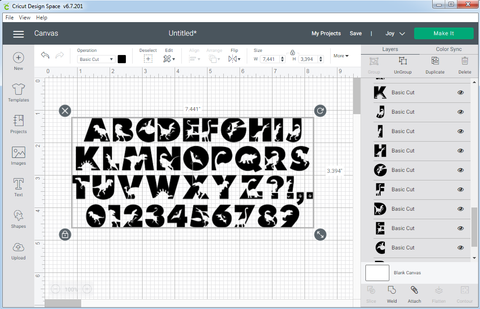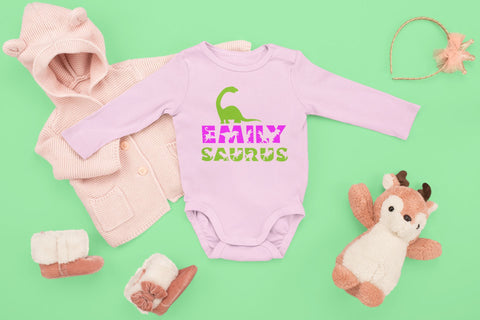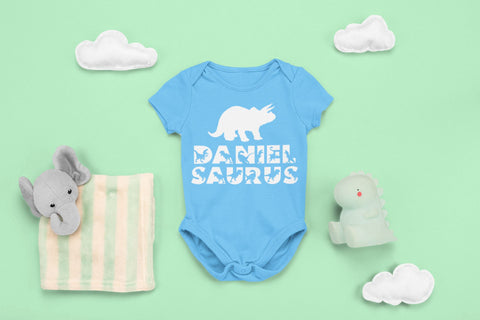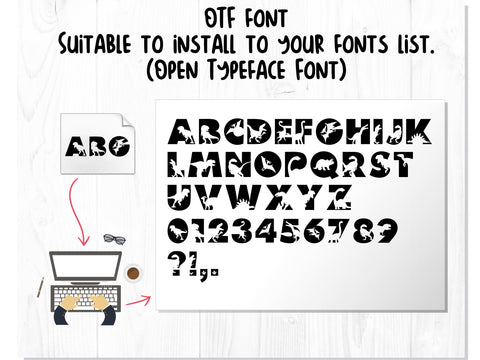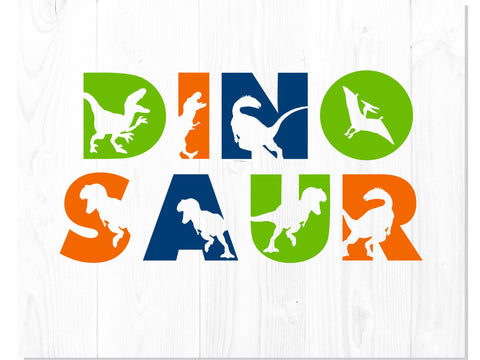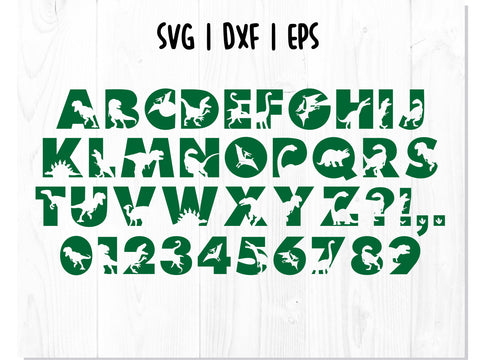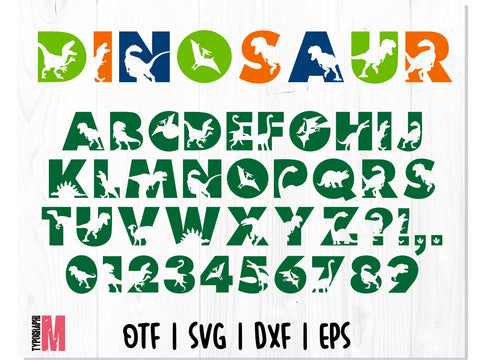
Dino Park Font | Dinosaur Font
Dino Park is a cool, bold and friendly decorative font, featuring dinosaurs on each character. Whether you are using it for cartoon-related designs, children’s games, quotes, titles, brand names, book covers, posters, or just any creation that requires a touch of beauty, this font is a great choice.